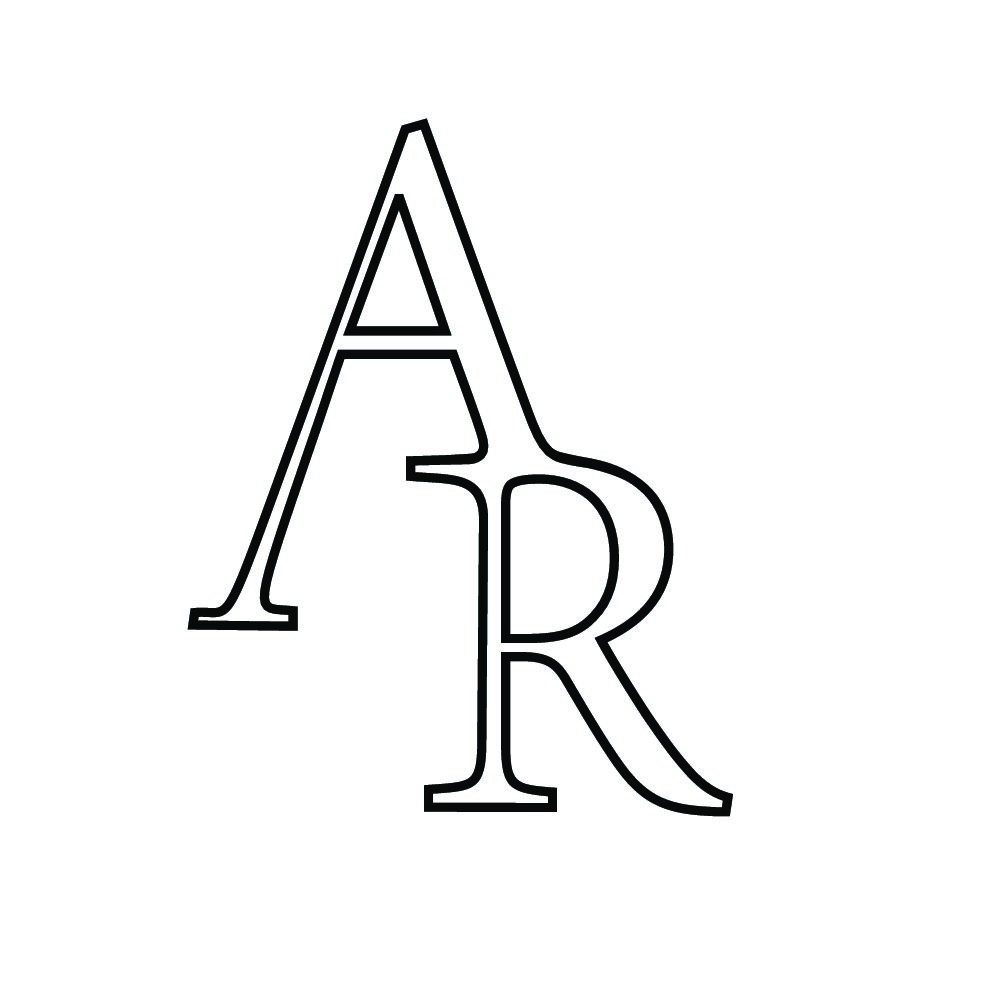
Illustrator: Creating letter logos
Design ideas and design process
For this task, I  created three different letter logos made of my initials. I wanted to create three that were very distinct and unique, and to do this, I did a lot of sketches and rough drawings to help me brainstorm. I also played around with different ways of arranging the letters, as well as asking my family for their opinions, before settling on an official idea.
Initial sketches
Logo 1: From the beginning, I knew I wanted one of the logos to look classy and traditional, so when I sketches rough arrangements for my initials, I kept in mind that I wanted the letters to be a serif typeface. I first sketched a variety of different letter combinations for my initials, and the whole time I imagined them as having serifs and looking old and traditional. After this, I began to use illustrator to play around with my initials. I kept them in black and white however so that I was not distracted by colour. I then combined all of my experiments to decide which I liked most. After deciding on my favourite combination, I began to warp the text and explore different ways of presenting the thickness and length of parts of the letter. Eventually I found a shape I liked and stuck with it. I began to explore different colours and strokes, but stuck with a simple white fill and black background (final logo seen here Final logo 1)
Illustrator letter arrangement experiments
Logo 1 editing process
Logo 2: The process of creating me second logo was fairly similar to the first, where I simply continued to rearrange two letters on my screen. I also used my initial sketches for logo 1 as inspiration. Much like before, I combined all of my favourite arrangements on a page to help me decide which I liked the most (initial combinations left).  After deciding which was my favourite, I warped the text and thickened and thinned it in certain areas until I found a style which I liked. Once I decided on a shapes, I began experimenting with colour. After finally deciding on a colour combination, my logo was complete (final logo here logo 2)
Colour experiments
Arrangement experiments
Logo 3: For my third and final logo, I wanted to create a more soft and delicate logo which looked almost hand written. Partially inspired by the coke logo, I chose to make this logo using the pen tool so that I could add on lots of different twirls at the end of lines. After I decided on a rough shape for my letter lines to follow, I started exploring different colours and thicknesses. Finally, I ended up settling on a simple black design with thick and thin lines (final outcome here logo 3).
Logo 3 sketches
Logo 3 colour experiments
Resources for research and inspiration
To help with my idea generation at the beginning of my logo designing, I briefly looked online at examples of letter logos. I wanted to look more at how the letters were arranged and their shape than their colour and texture. Later on when I had designed the shape of my second logo, I looked at different ways of filling and decorating text (link here). I also looked at company logos which looked hand drawn such as Coca Cola to help me get an idea on how to draw my third logo as I wanted it to look hand written. I really liked the free stroke style of Coca Cola as well as Unilever, Cadburys, and Disney. Serif based logos such as Gap, Rolex, and Vogue are what inspired me to create my traditional styled logo 1.